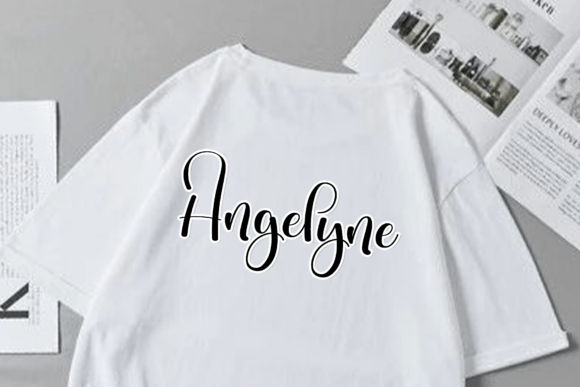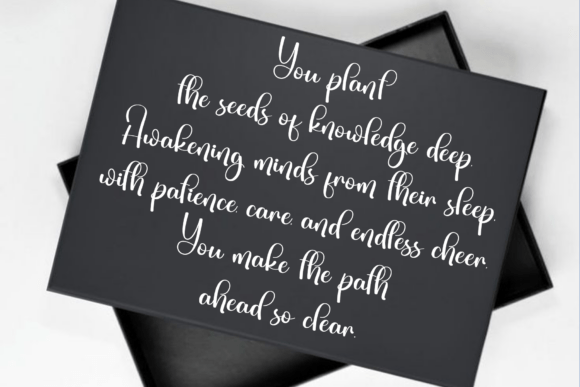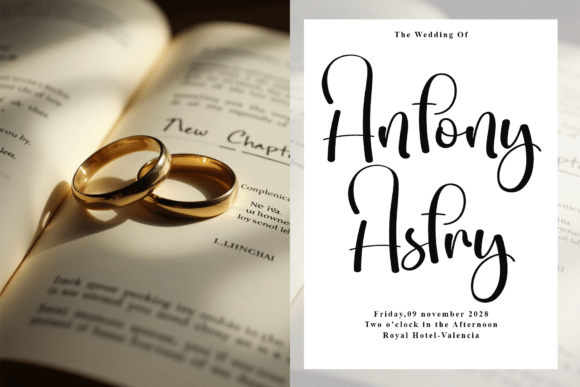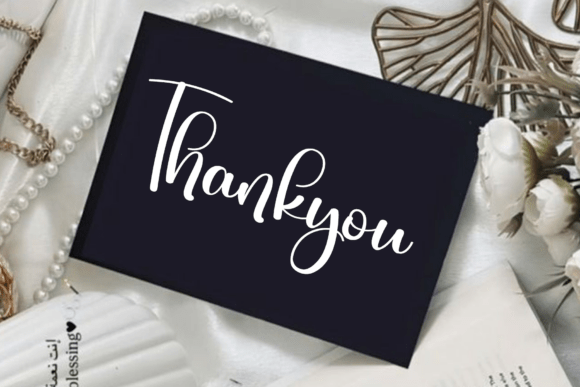
Introducing Alrighty Milyarder Font: Elevate Your Brand with Sophistication and Flair
In the world of typography, few fonts manage to strike a balance between elegance and approachability. Alrighty Milyarder, however, achieves this delicate equilibrium with remarkable finesse. This sophisticated and rhythmic script font is designed to bring a touch of artisanal charm to any project, making it an ideal choice for designers and crafters looking to infuse their work with a sense of customized, high-end quality.
The Distinctive Charm of Alrighty Milyarder
At the heart of Alrighty Milyarder’s appeal lies its unique blend of calligraphic flair and organic warmth. The font’s defining feature is its use of sweeping, looping ascenders that lend each letterform a dynamic, hand-crafted feel. This characteristic not only sets Alrighty Milyarder apart from more conventional script fonts but also imbues it with a sense of personality and whimsy.
Ideal Applications for Alrighty Milyarder
Given its distinctive aesthetic, Alrighty Milyarder is particularly well-suited for projects that demand a high level of sophistication and artisanal appeal. Some of the prime applications for this versatile font include:
- Artisanal Food Branding: For businesses that specialize in gourmet foods, specialty teas, or handcrafted beverages, Alrighty Milyarder offers a typographic solution that echoes the quality and care that goes into their products.
- Boutique Product Packaging: Whether it’s handmade jewelry, bespoke home decor, or luxury skincare products, this font can add a touch of elegance and refinement to packaging designs, helping brands stand out in a crowded marketplace.
- Upscale Lifestyle Marketing: For marketing campaigns targeting affluent audiences, Alrighty Milyarder provides a stylish and sophisticated typographic voice that resonates with discerning tastes.
- Creative Editorial Titles: Designers working on editorial projects, such as magazines, blogs, or books, can use Alrighty Milyarder to create eye-catching titles and headings that capture the essence of their content.
Why Choose Alrighty Milyarder?
Choosing Alrighty Milyarder for your design projects comes with several advantages:
- Unique Aesthetic: Its distinctive looping ascenders and warm, organic feel ensure that your designs will have a unique and memorable look.
- Versatility: Despite its specific artisanal and luxury connotations, Alrighty Milyarder is versatile enough to be used across a range of design applications, from digital media to print.
- Ease of Use: As a well-crafted script font, Alrighty Milyarder is designed to be easy to read and versatile in its usage, making it suitable for both headlines and body text.
Tips for Using Alrighty Milyarder Effectively
To get the most out of Alrighty Milyarder, consider the following tips:
- Pair with Complementary Fonts: Combine Alrighty Milyarder with clean, sans-serif fonts for body text to create visual contrast and enhance readability.
- Experiment with Colors: While the font’s organic warmth pairs beautifully with earth tones, don’t be afraid to experiment with bold color choices to match your brand’s personality.
- Adjust Letter Spacing: For optimal results, pay attention to letter spacing to ensure that the sweeping ascenders and descenders have enough room to breathe.
Alrighty Milyarder font is a remarkable addition to any designer’s toolkit, offering a perfect blend of sophistication, artisanal charm, and readability. Whether you’re working on branding for an artisanal food business, packaging for a boutique product line, or marketing materials for an upscale lifestyle brand, Alrighty Milyarder provides the typographic elegance and flair needed to elevate your designs. With its unique aesthetic, versatility, and ease of use, this font is poised to become a go-to choice for designers and crafters seeking to infuse their work with a touch of luxury and personality.